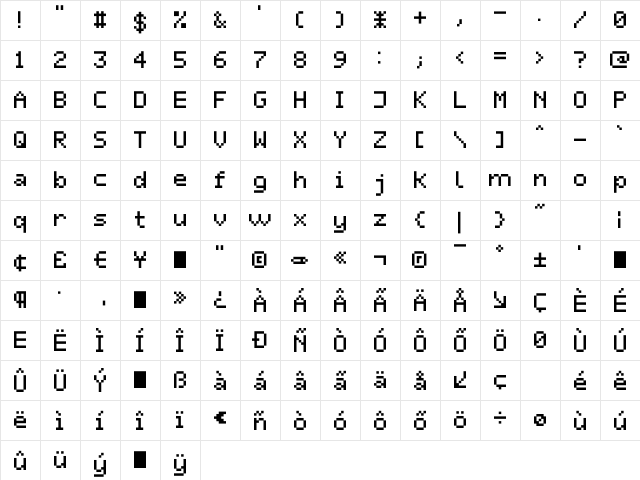
DS SysBit Regular
Design Context for DS SysBit Typeface
DS SysBit offers clean, dependable letterforms without strong stylistic allegiance, making it a practical choice for designers who need flexibility.
Pro Tip: Use DS SysBit in both headline and body roles to test its range before committing to a single application.